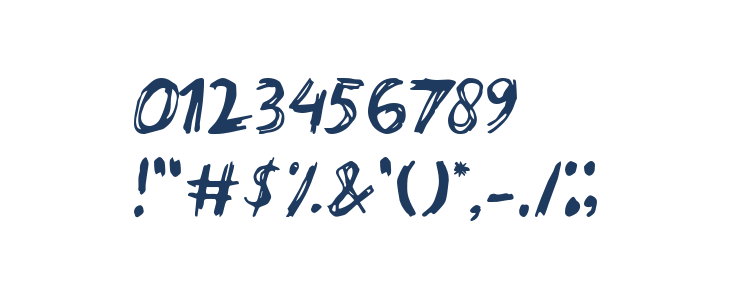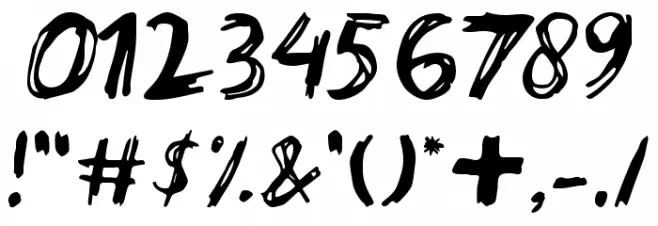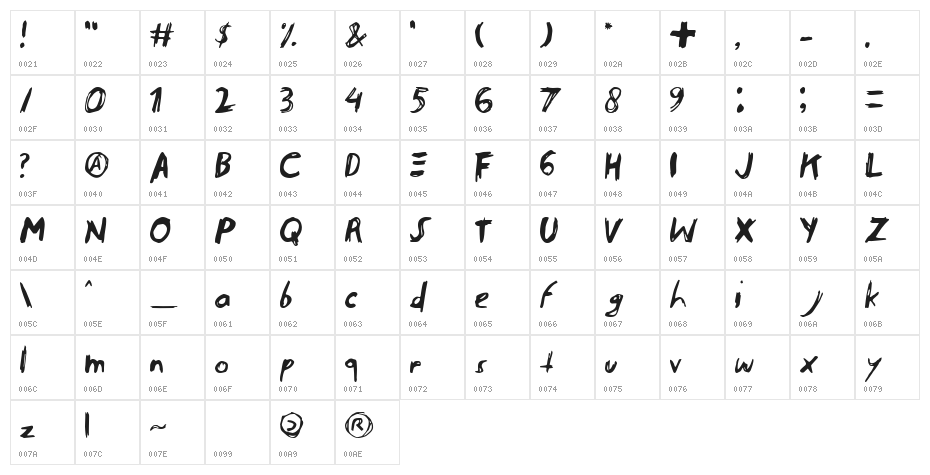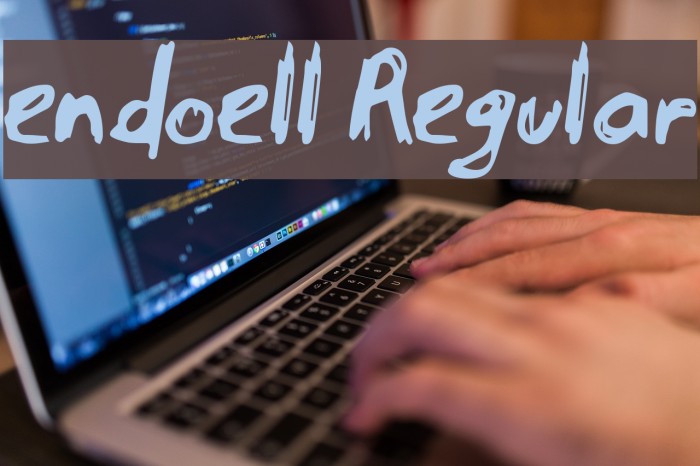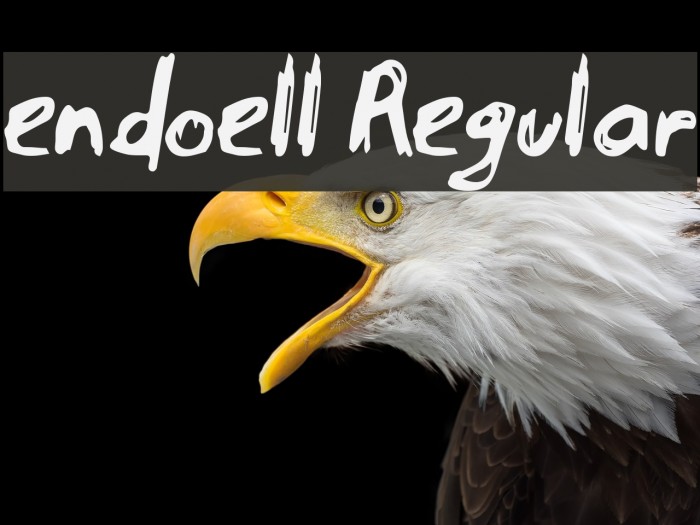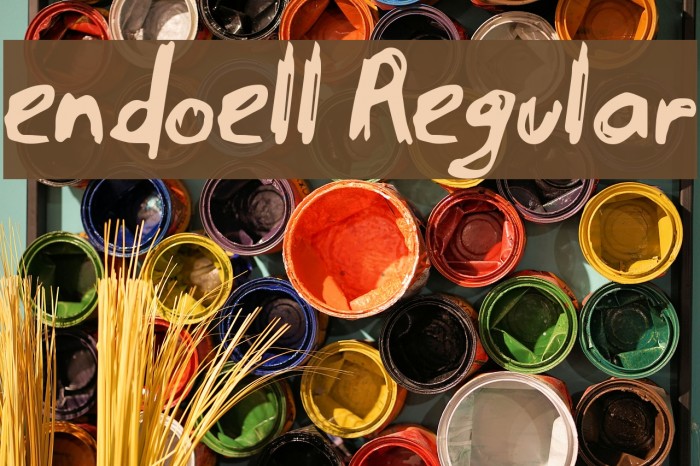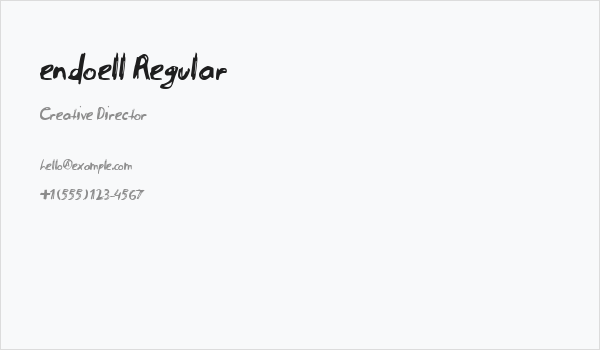
endoell Regular Font
endoell Regular Description
This font features a bold and expressive handwritten style, characterized by its dynamic and energetic strokes. The letters exhibit a playful and artistic flair, with varying thicknesses that create a sense of movement and spontaneity. The uppercase and lowercase letters maintain a consistent style, while the numerals and special characters complement the overall aesthetic. The font's unique personality makes it stand out, offering a creative and informal touch to any design project.
Proposed ProjectsIdeal for creative projects such as posters, invitations, branding, and social media graphics where a personal and artistic touch is desired.